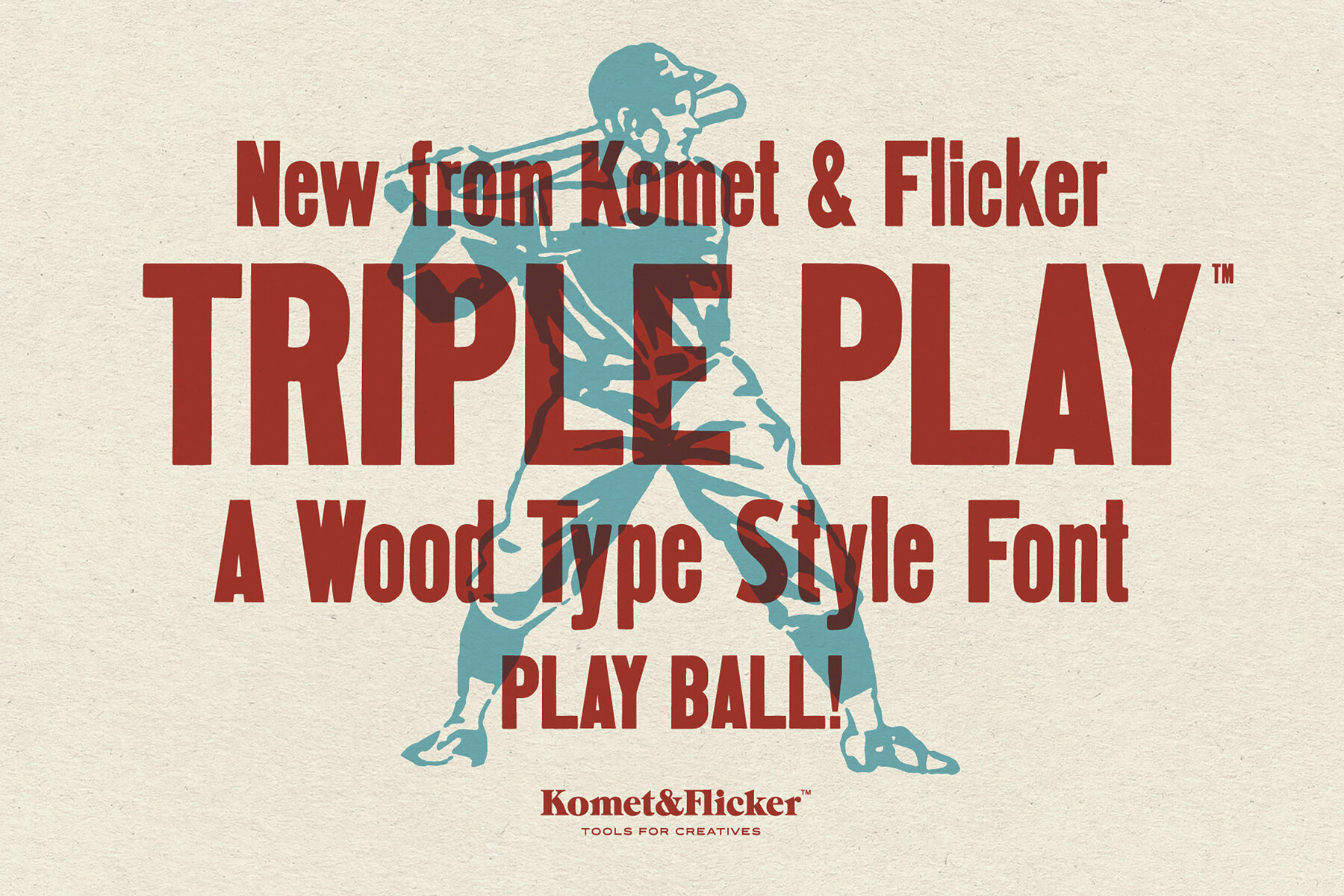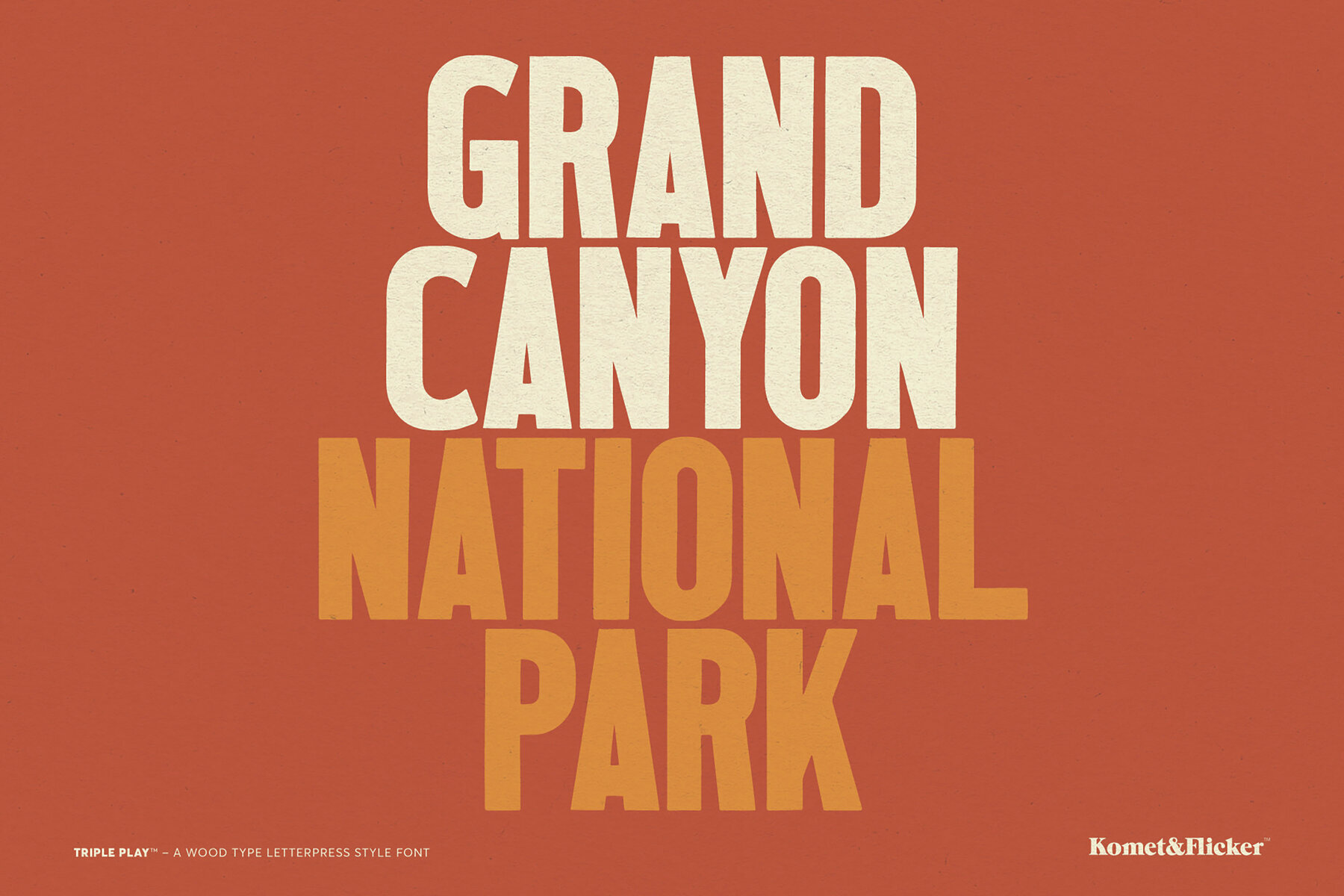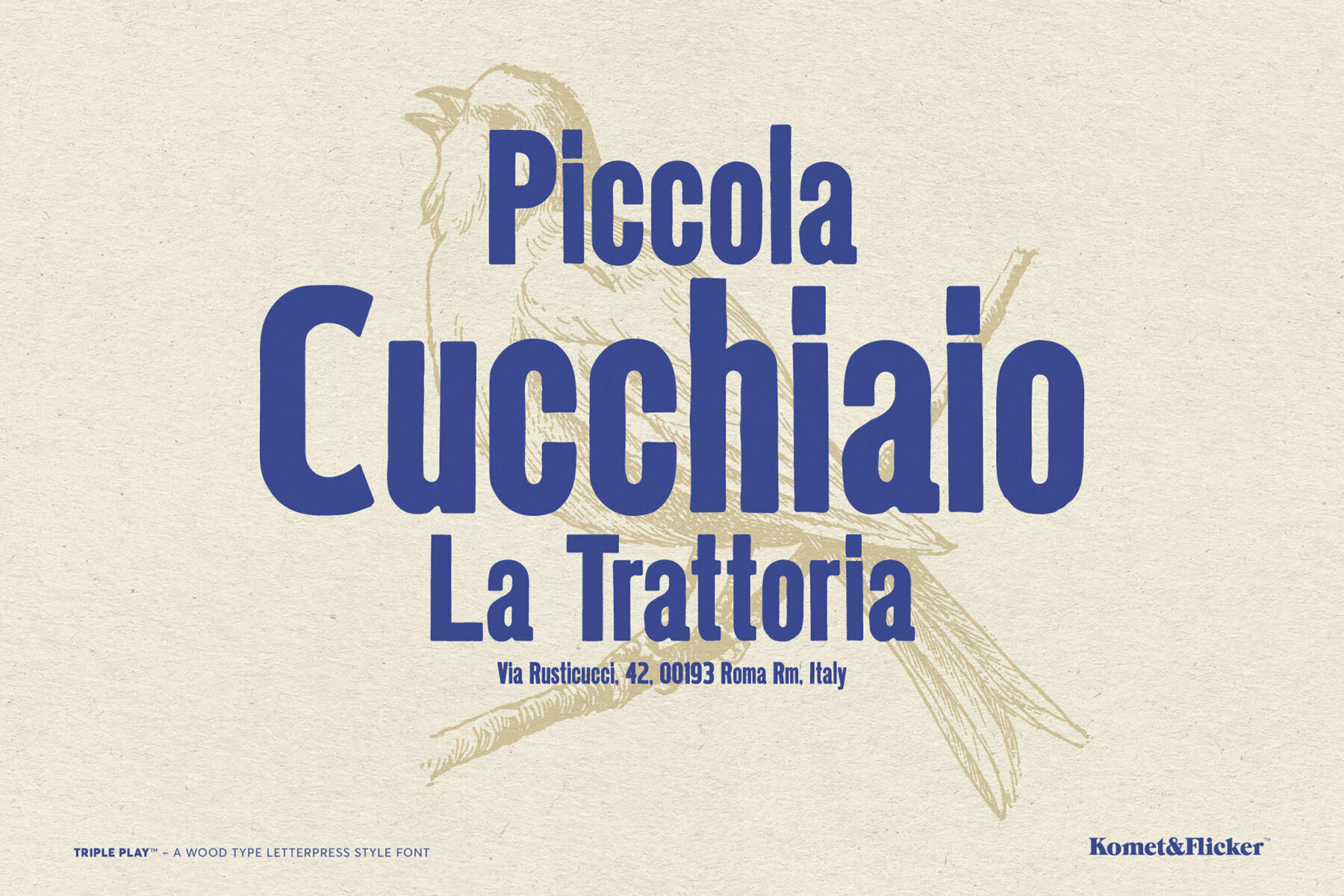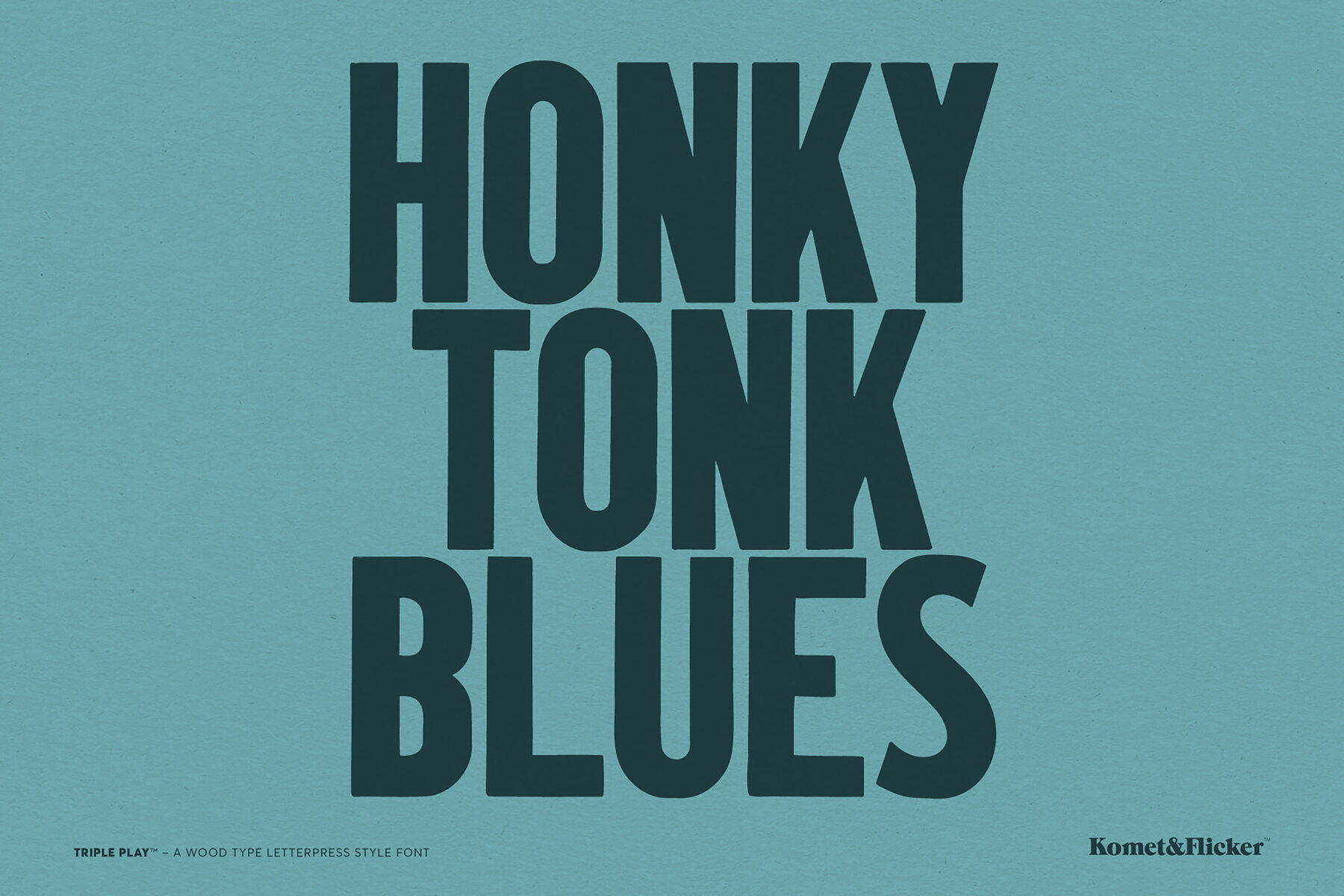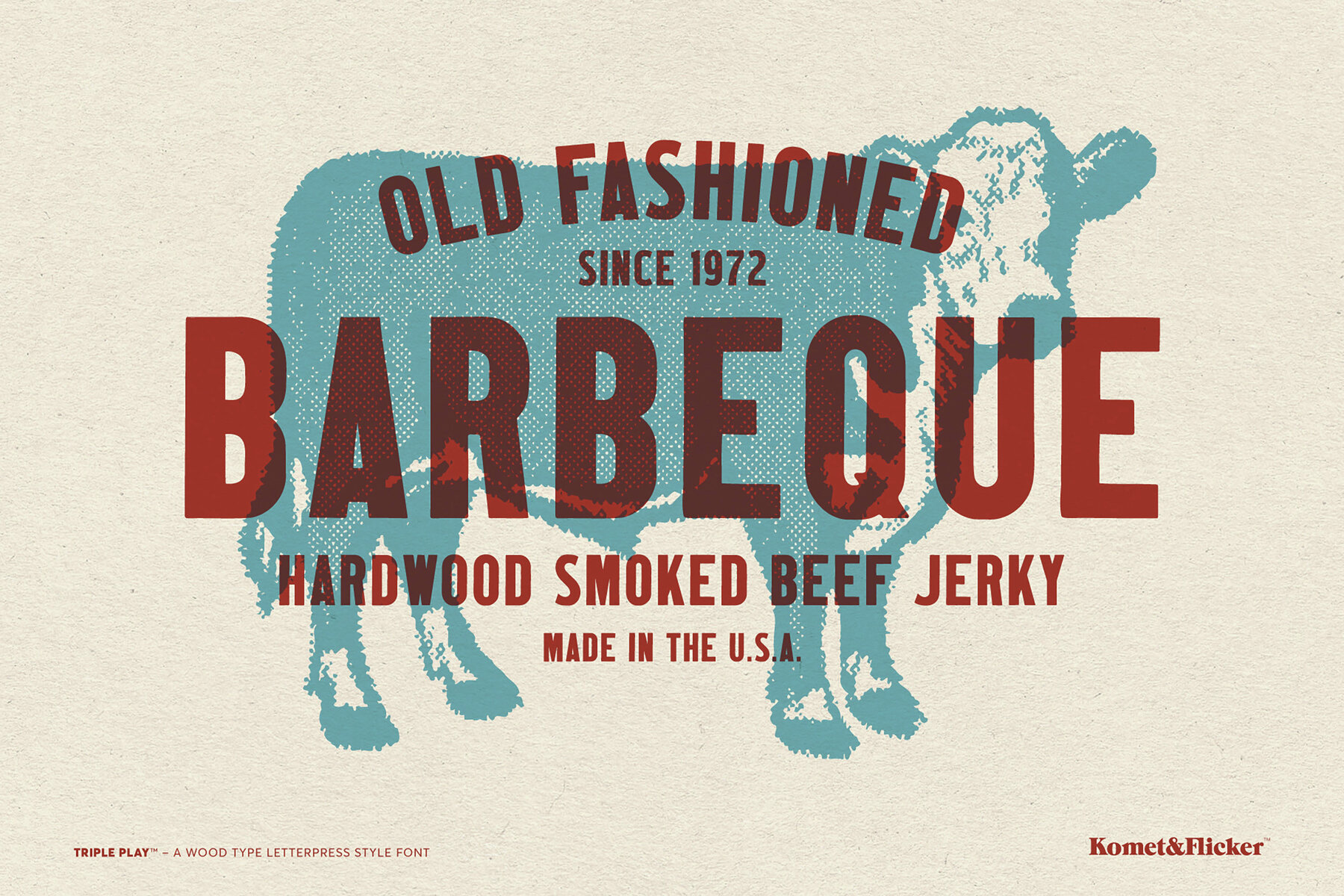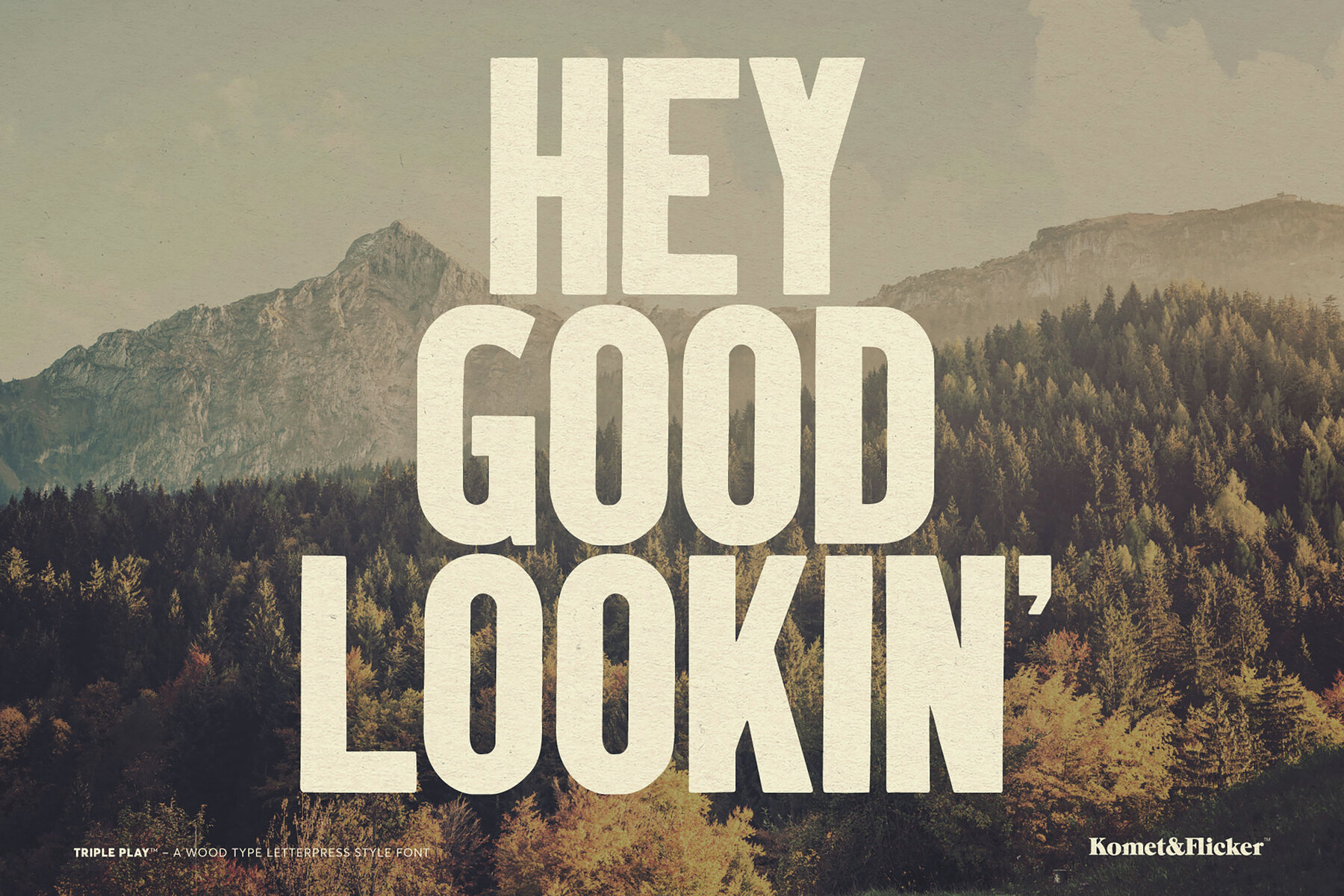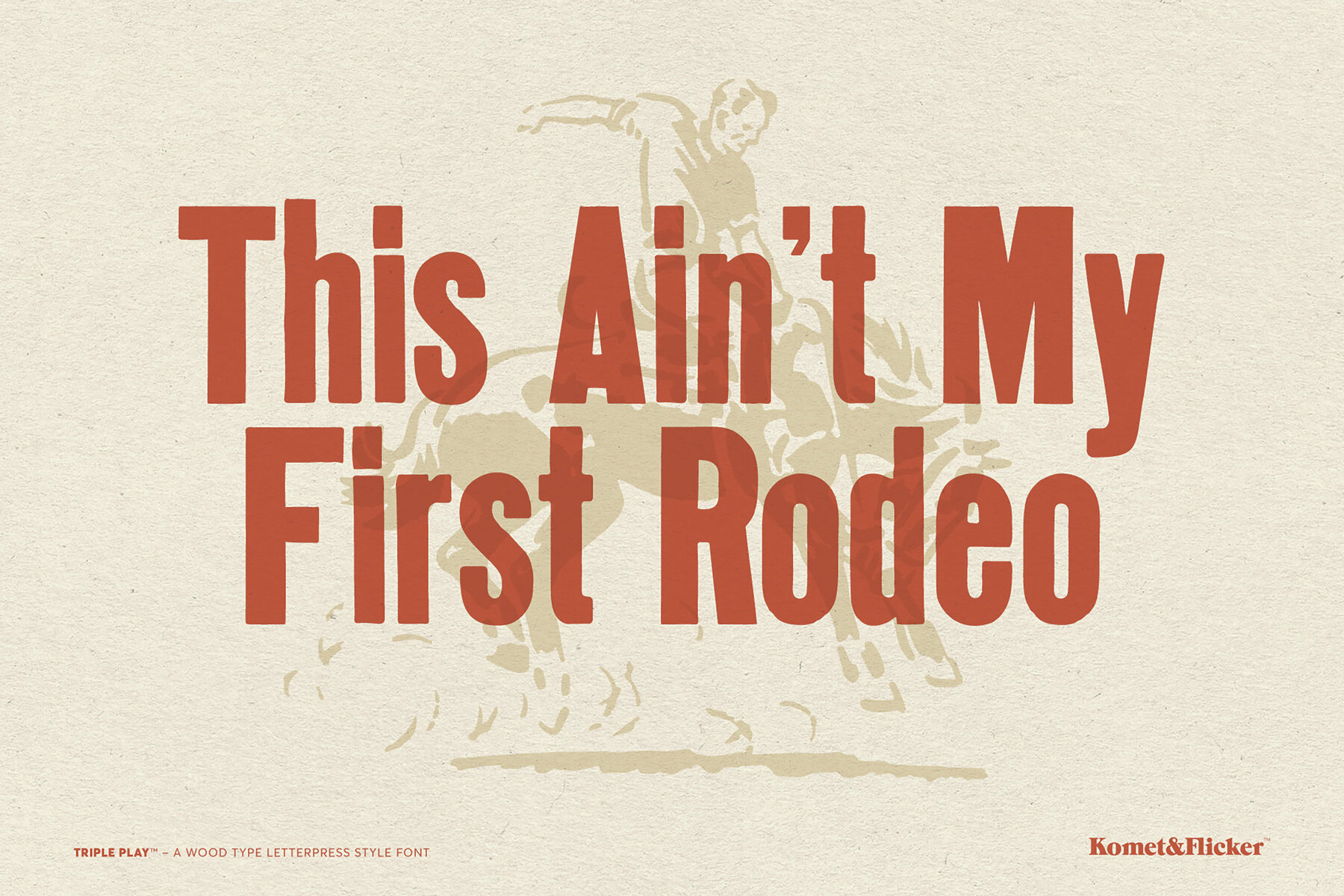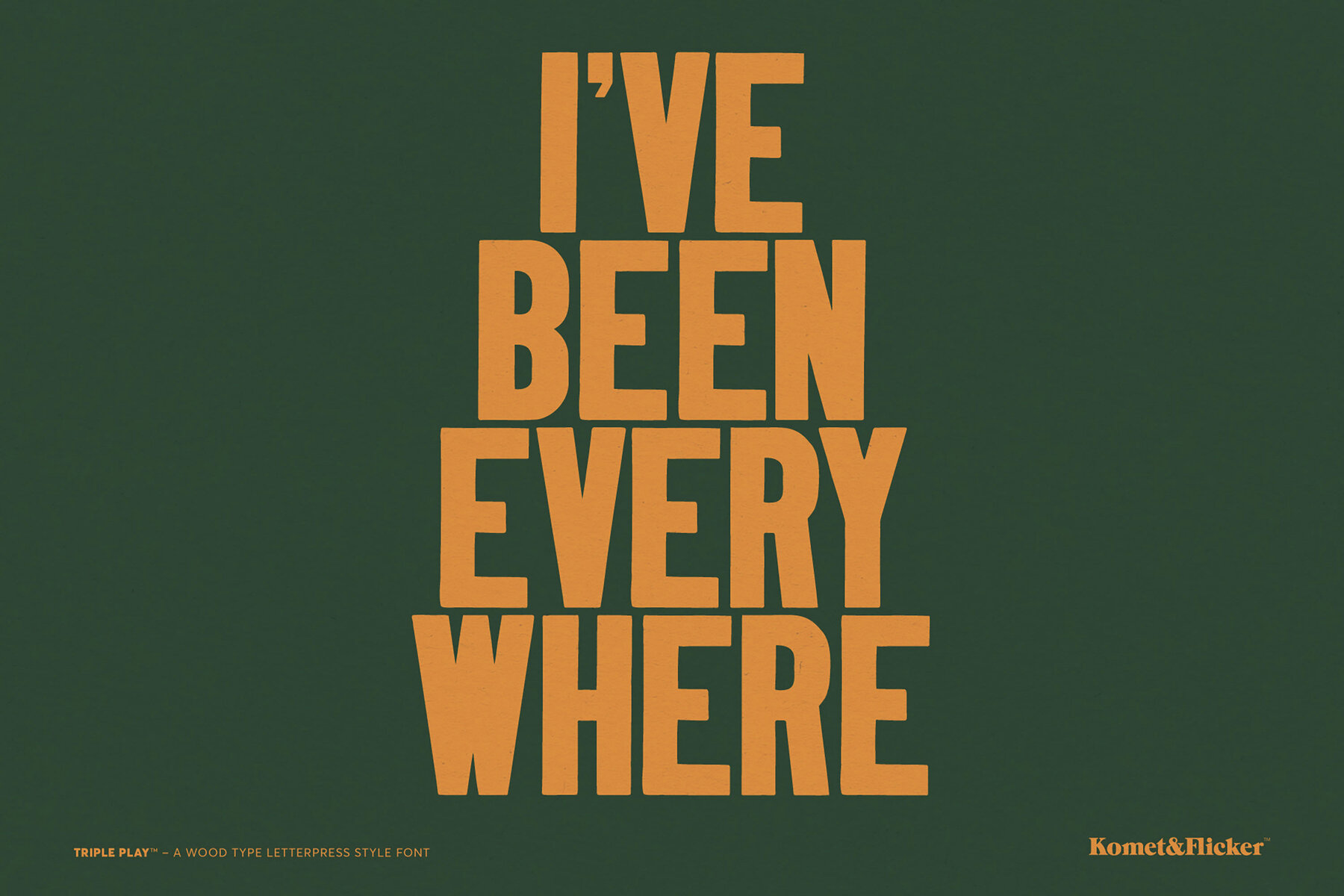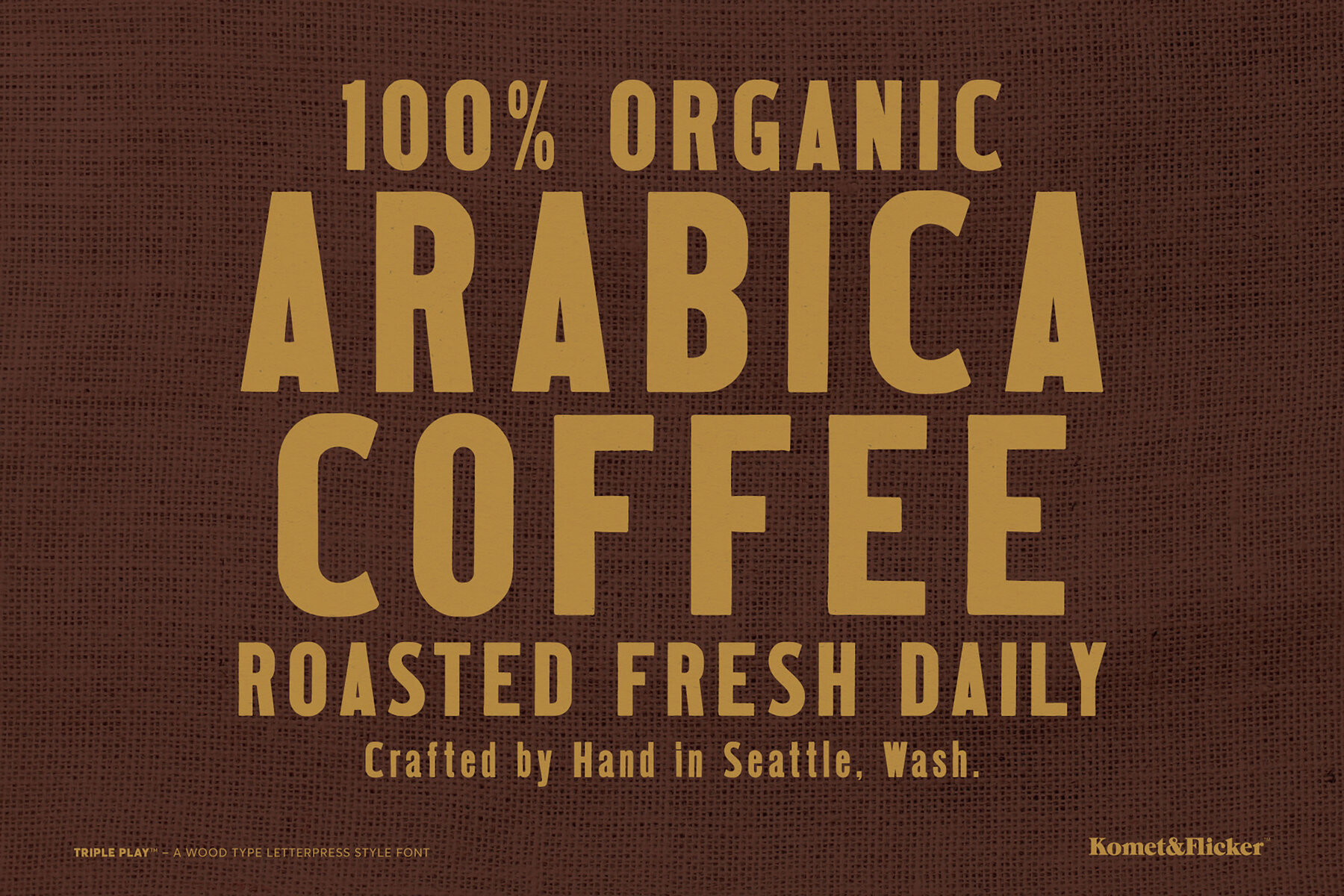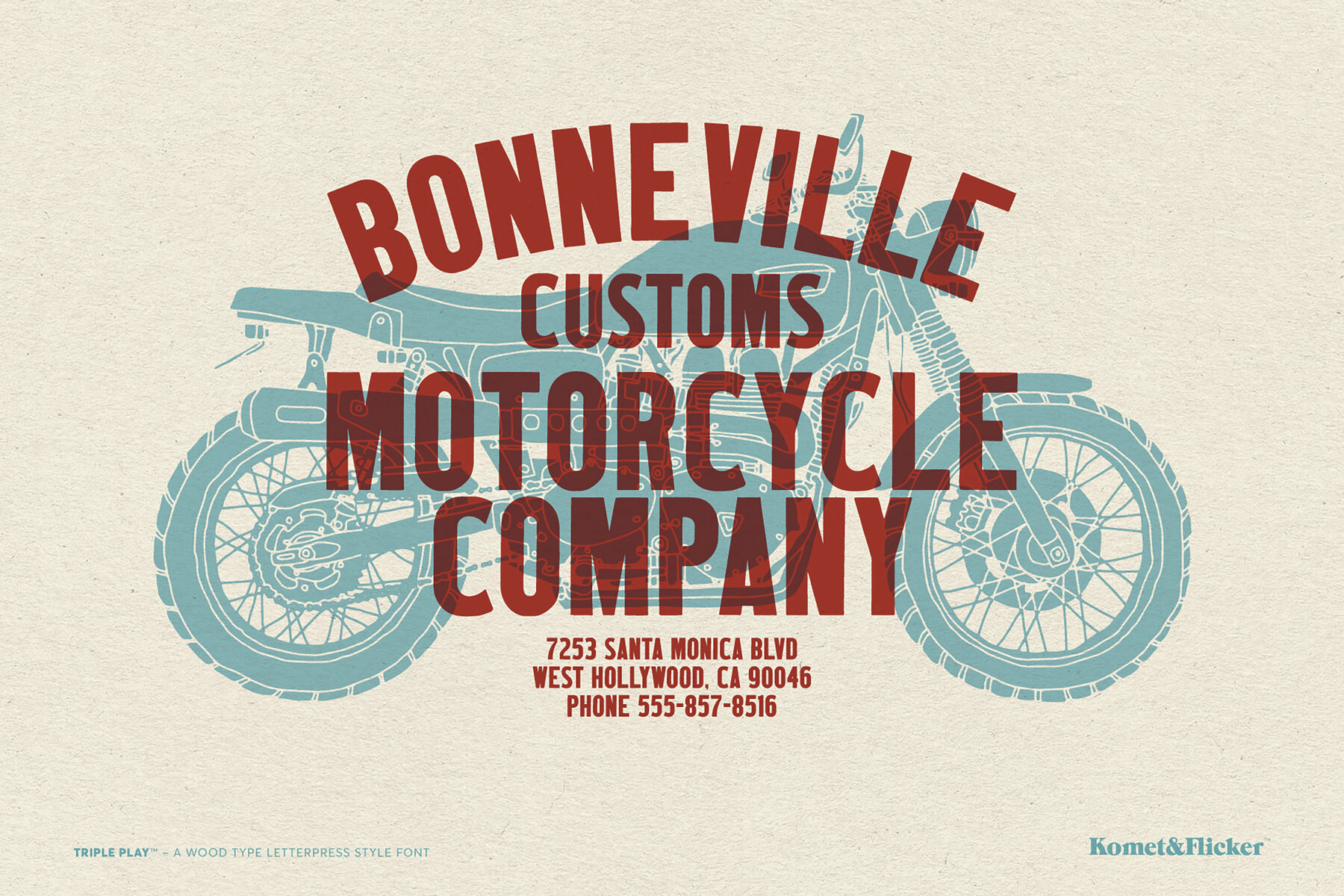
Triple Play Font
Triple Play Bold
Bring bold character and timeless charm to your design projects with Triple Play, a vintage-inspired font crafted with the spirit of classic wood type letterpress printing. Perfect for everything from posters and logos to packaging and signage, Triple Play captures the tactile beauty of hand-set type that resonates with warmth and character. THIS FONT INCLUDES